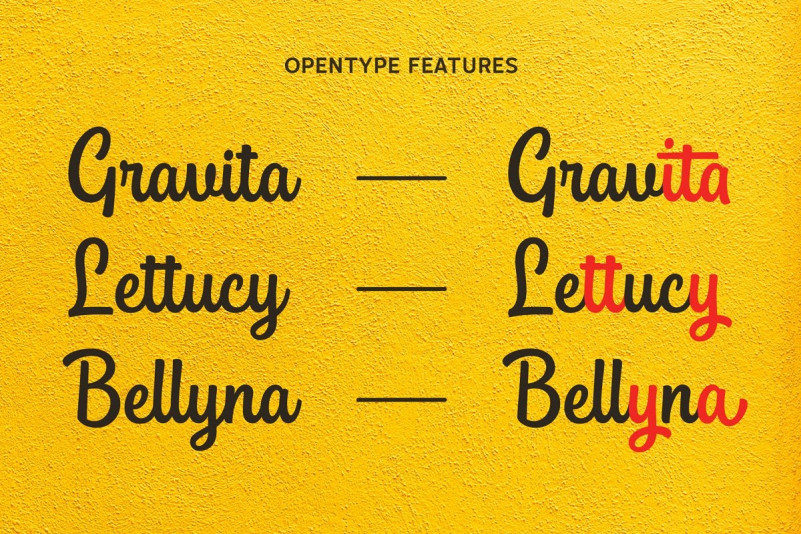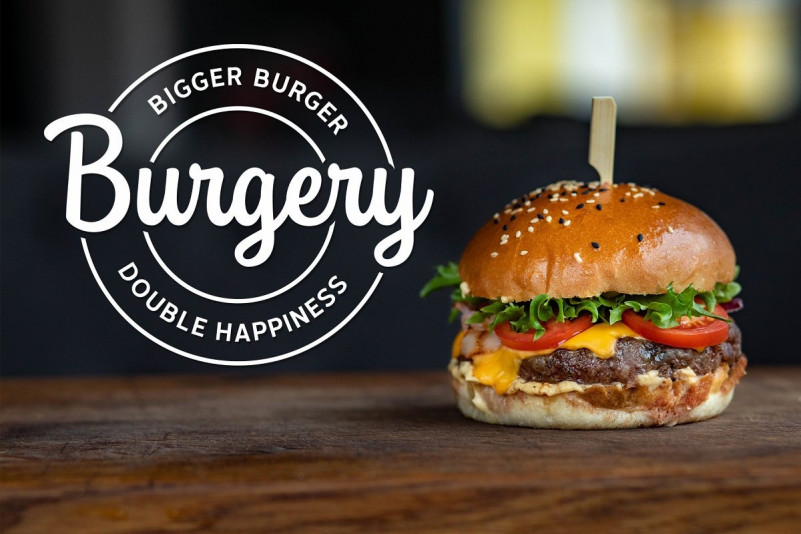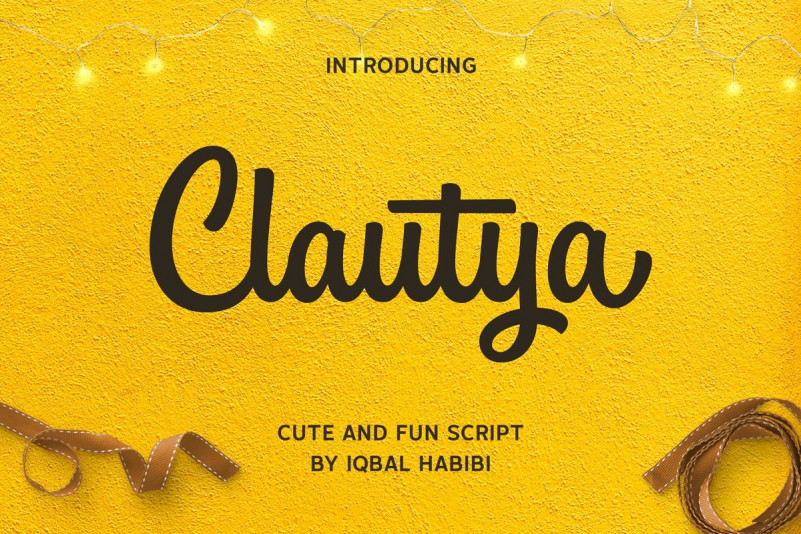
Clautya Script Font
“Clautya Script Font” is a cute and fun handdrawn script. “Clautya Script Font” is great for create lettering works, logotype, tshirt design, packaging design, signboard, poster, quote and many more.